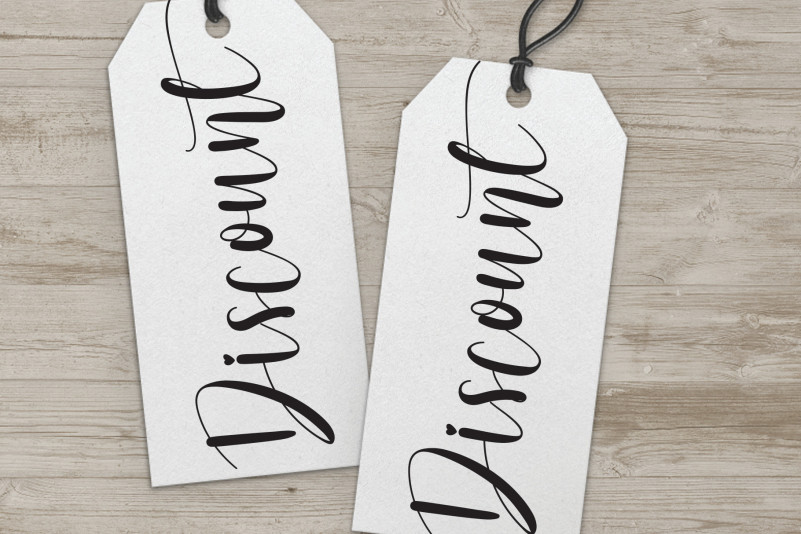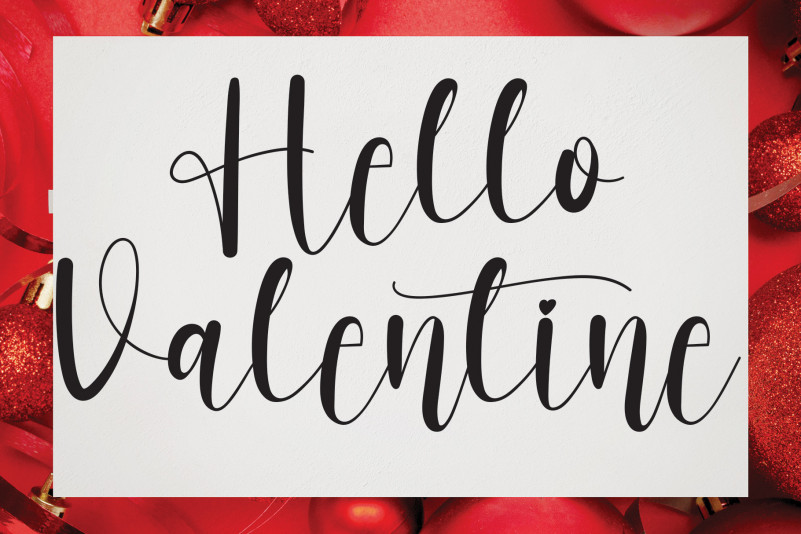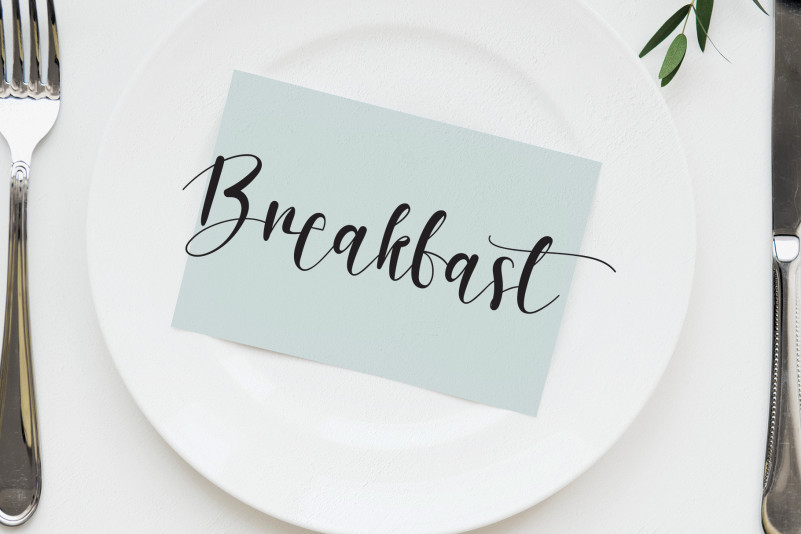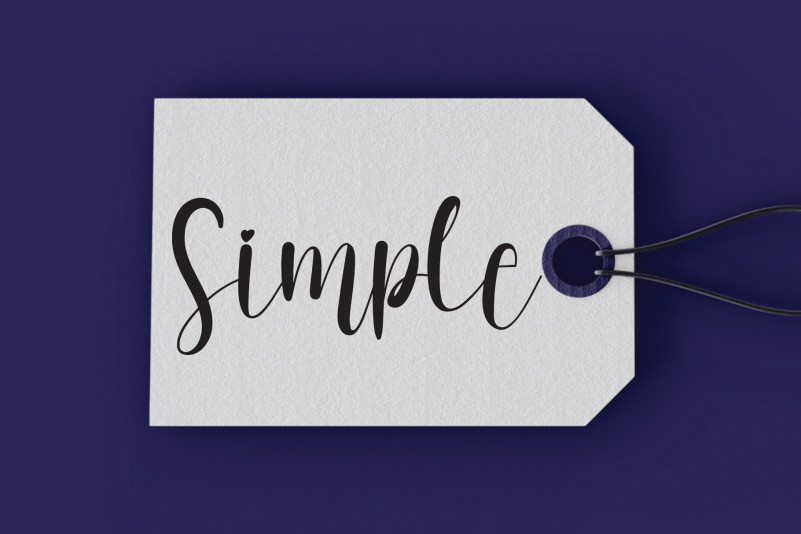
Sweetbutter Script Font
This is a sophisticated handwritten font. Its elegant and original characters make this design perfect for a wide range of projects that need a lovely, handwritten touch!
the latest style letters are perfect for wall displays, wedding invitations, social media post logos, advertisements, product packaging, product designs, labels, photography, watermarks, invitations, stationery, and any project that requires taste handwriting.